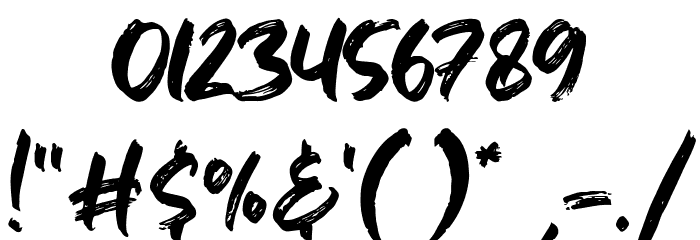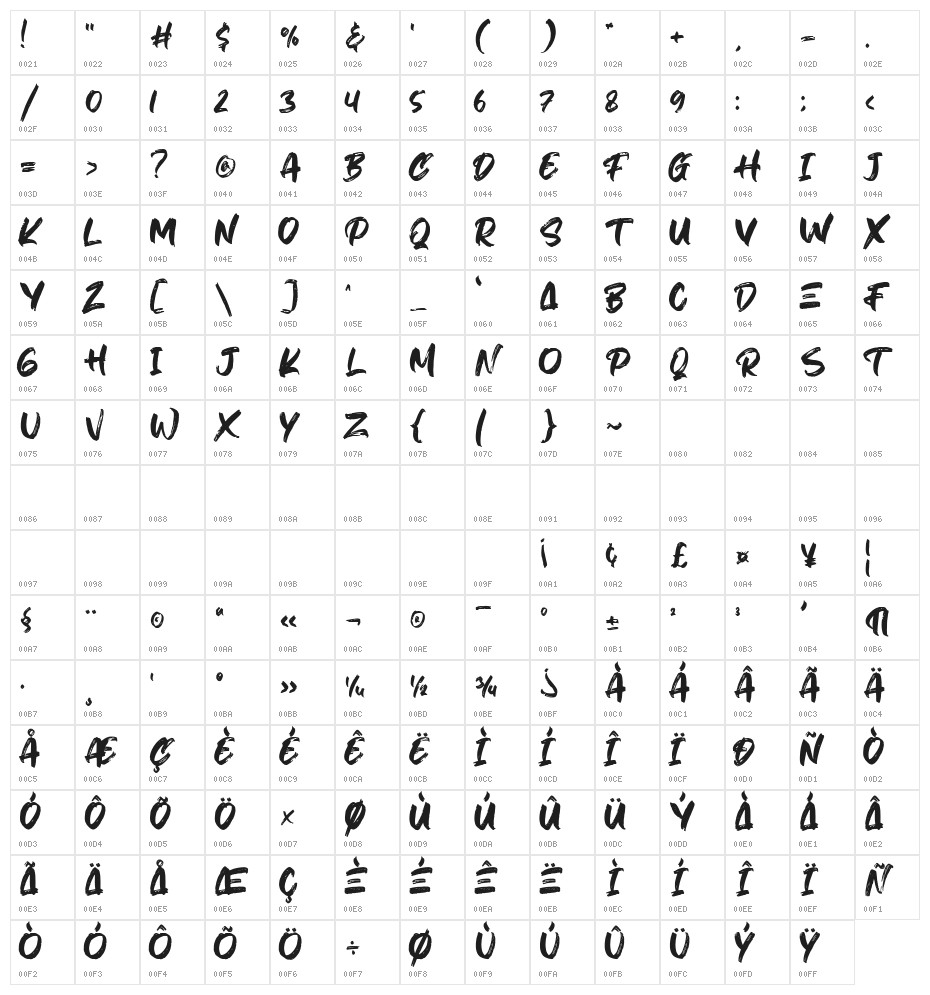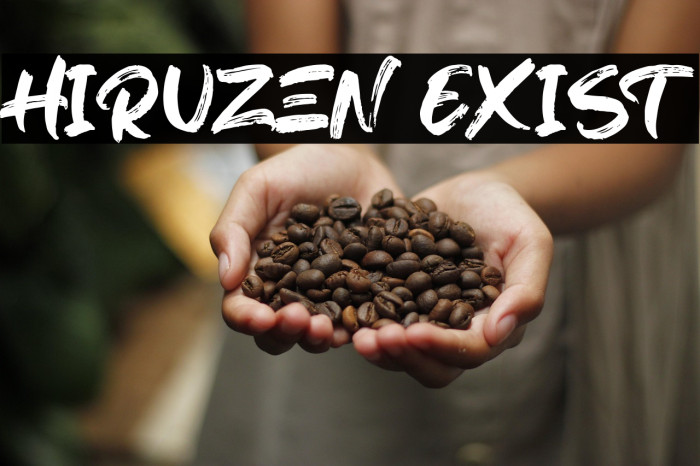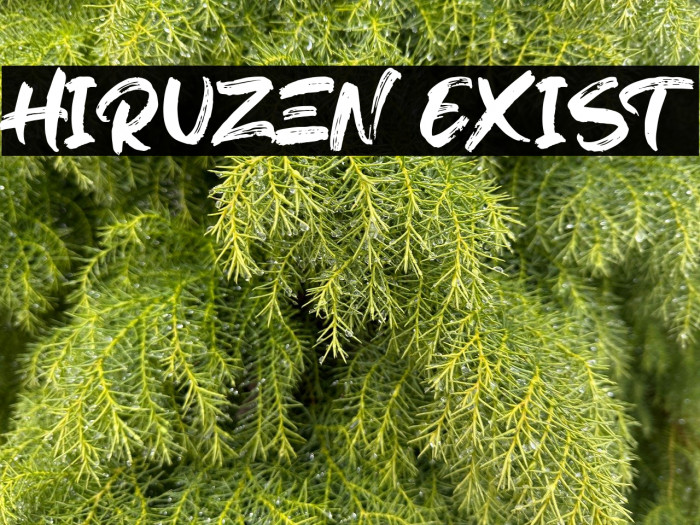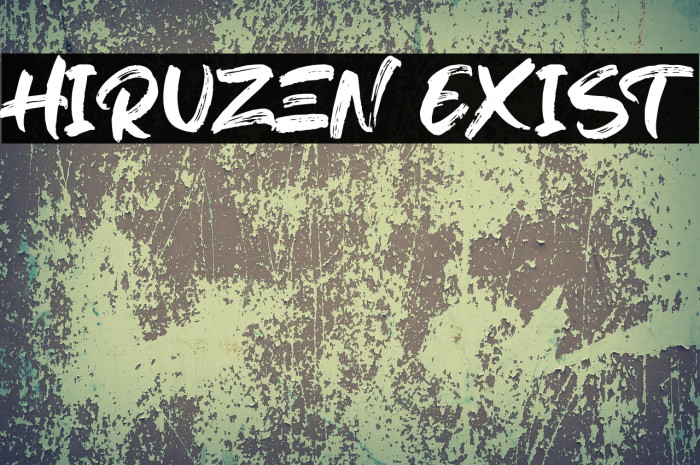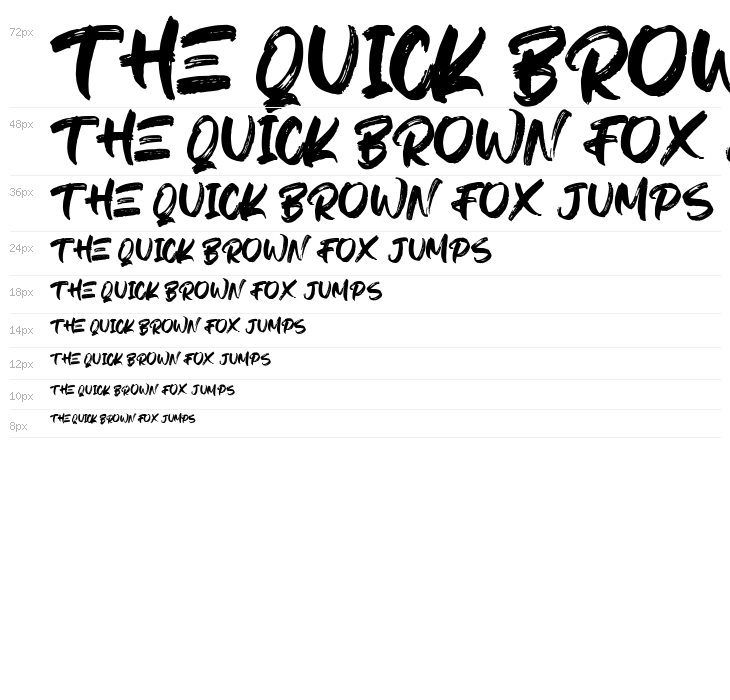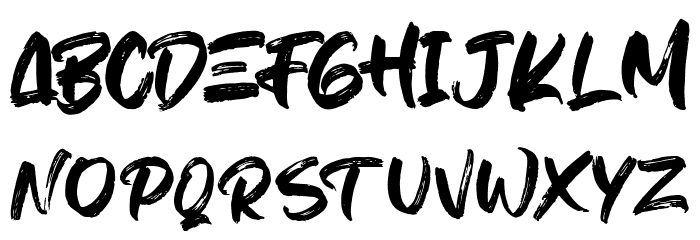
Hiruzen Exist Font
Hiruzen Exist Description
This font exudes a bold and energetic style, characterized by its brush-like strokes and dynamic appearance. The letters are crafted with a sense of movement, giving them a lively and expressive quality. The uppercase and lowercase letters maintain a consistent flow, while the numbers and special characters complement the overall aesthetic. The rough edges and varying stroke widths add a handcrafted feel, making it ideal for projects that require a personal touch. Its bold presence makes it suitable for attention-grabbing designs.
| Proposed Projects | Ideal for branding, posters, social media graphics, and any design needing a bold, artistic touch. |